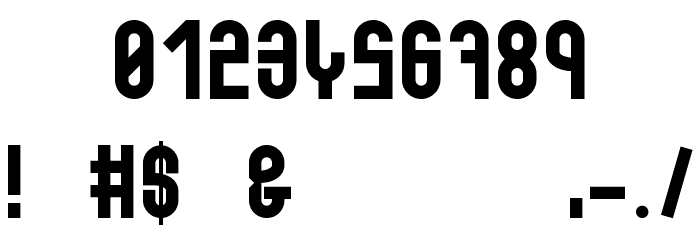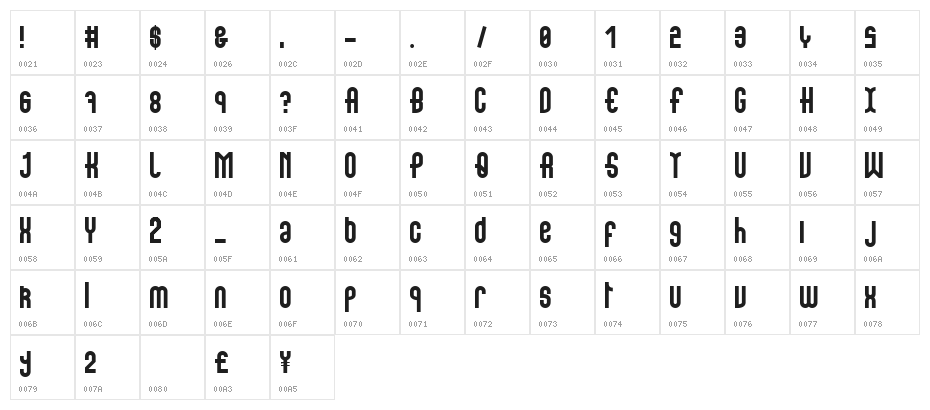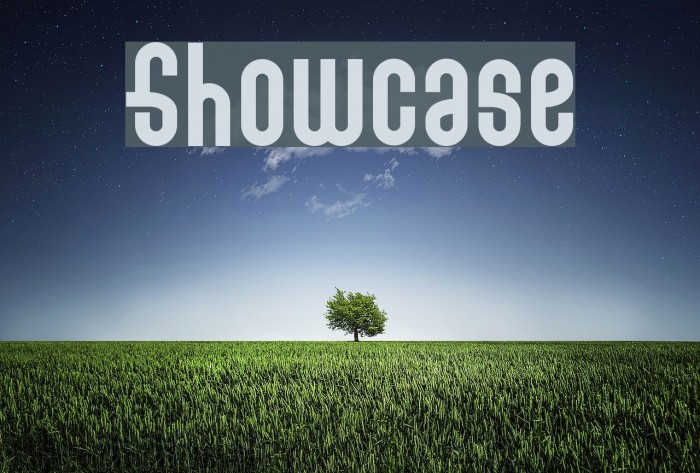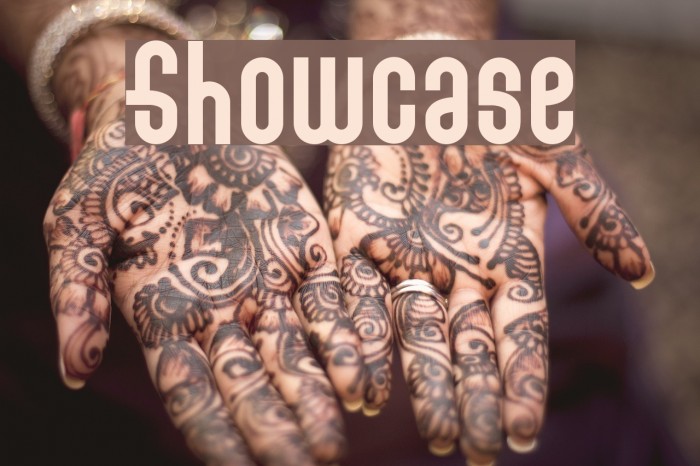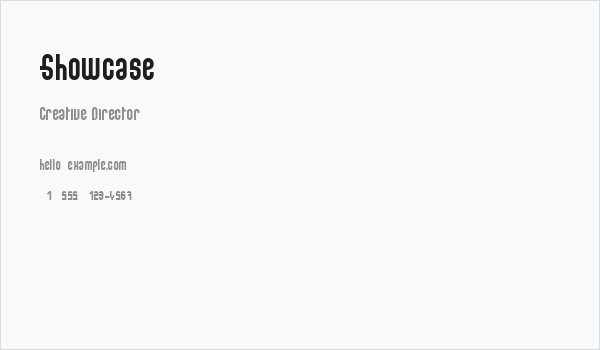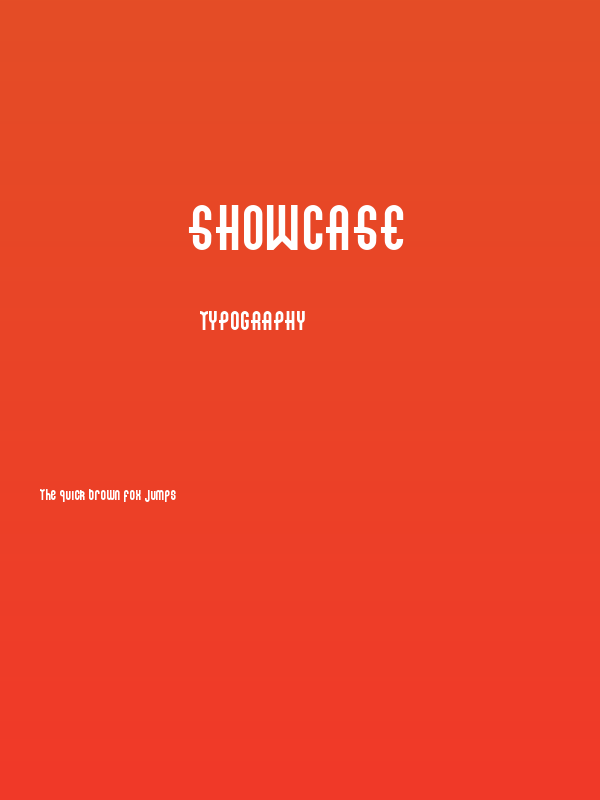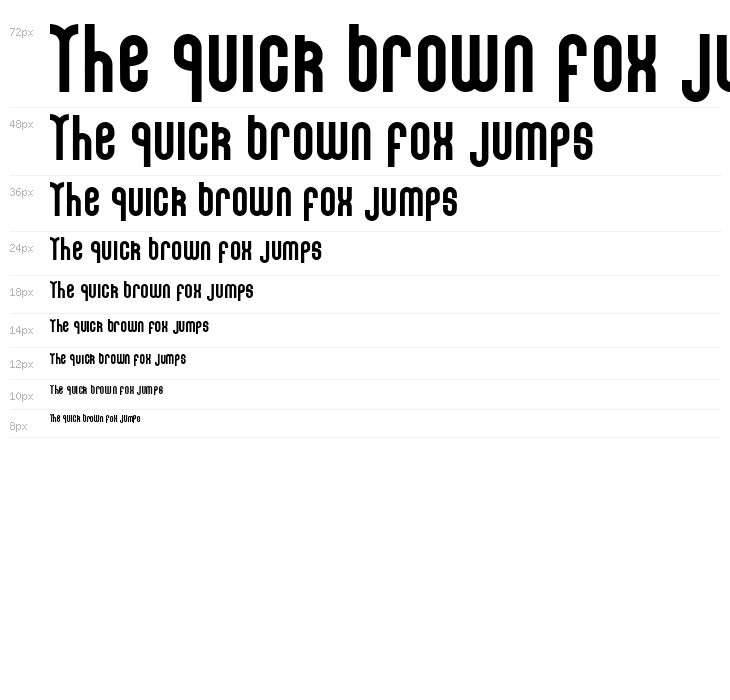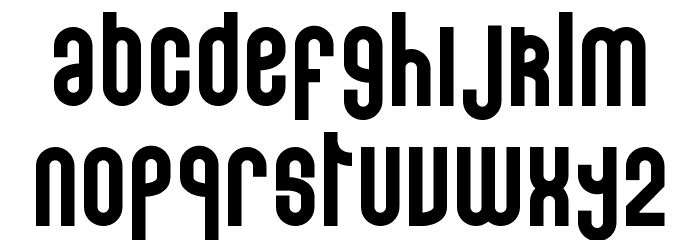
Showcase Font
Showcase Description
This font features a bold and striking design with a strong geometric influence. The characters are constructed with a consistent stroke width, giving it a uniform and cohesive appearance. The uppercase letters exhibit a unique blend of straight lines and curves, creating a modern yet slightly retro feel. The lowercase letters maintain the same geometric style, ensuring readability while adding a touch of playfulness. Numbers and special characters are designed to match the overall aesthetic, making this font versatile for various uses. Its boldness and distinct style make it ideal for attention-grabbing headlines and logos.
Proposed ProjectsIdeal for branding, poster design, and any project requiring a strong visual impact.